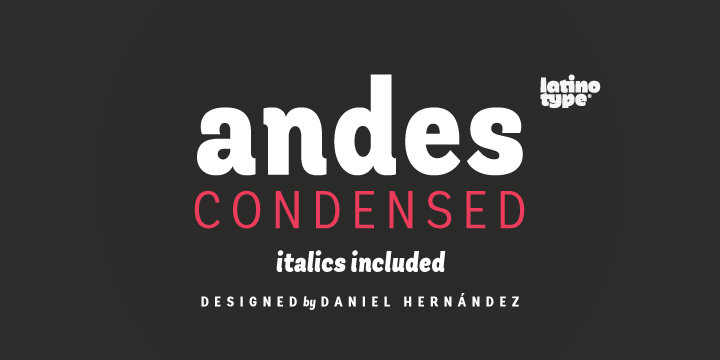
Andes Condensed is a latino type created by Daniel Hernandez and publisher by Latinotype. You can use this typeface to write books, magasines, logotype etc.